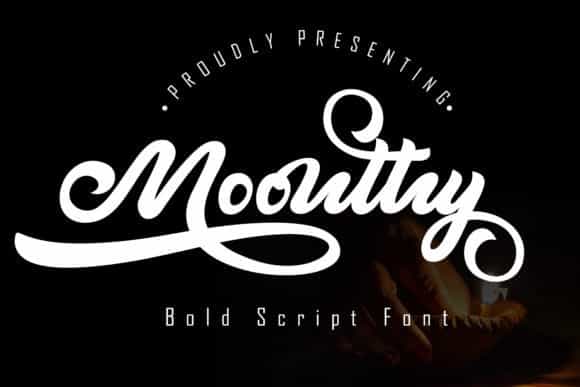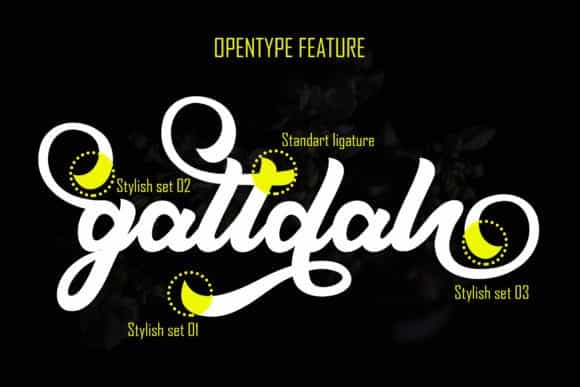
Discover Moonthy Font, part of the Calligraphy collection—a versatile and unique font perfect for adding a personal touch to your projects. Download it for free and enjoy crafting designs with style, from invitations to social media posts. This font is available exclusively for personal use, giving you the freedom to create without limits. Unlock your creativity with Moonthy Font today!
Introducing Moonthy! A very nice, bouncy script font with plenty of beautiful extras! Moonthy is just the thing for logos, branding, wedding invitations, greeting cards, prints blog banners and so on and so forth.